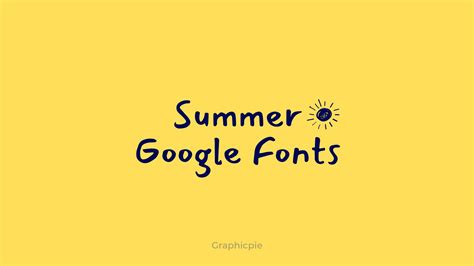
Last summer, I spent hours designing a beach party flyer in Google Docs, only to realize my typography looked exactly like a standard middle school book report. Default fonts like Arial and Roboto are functional, but they completely lack the breezy, energetic vibe seasonal projects demand. After digging through the native font directory, I compiled a massive list of 42+ Free Google Docs Summer Fonts Docx to save you the hassle. Here's the thing: Google Docs might not be Photoshop, but its typography library is surprisingly deep if you know where to look.
Curating My 42+ Free Google Docs Summer Fonts Docx List
When I tested this collection for various projects, I broke them down by mood. Summer aesthetics generally fall into three categories: breezy scripts, bold serifs for travel posters, and quirky sans-serifs for casual BBQ invites. You don't need external plugins to access these. You just need to expand your default font menu.
| Font Name | Style | Best Use Case |
|---|---|---|
| Pacifico | Script | Beach party headers |
| Shrikhand | Display | Retro road trip posters |
| Cherry Cream Soda | Display | Ice cream social invites |
| Josefin Sans | Sans-Serif | Clean summer newsletters |
How to Apply the 42+ Free Google Docs Summer Fonts Docx
Once I added them, I created a blank document to test kerning and readability. That said, some script typefaces look great as headers but fail completely in paragraph text. Always test your chosen typography at 12pt and 24pt before committing.
Organizing Your 42+ Free Google Docs Summer Fonts Docx
This is where it gets interesting. Google Docs doesn't let you create custom font folders. You just get one long alphabetical list. To manage this, I keep a master template document. Whenever I find a typeface I like, I type a sample sentence in that document, label the style next to it, and save the file. When I start a new seasonal project, I duplicate this master template. It saves me from scrolling through hundreds of unused typefaces every time I open a new file.
Designing seasonal documents is about capturing a feeling. The right typography does most of the heavy lifting for your layout. Play around with contrasting weights, keep your body text readable, and let your headers do the heavy thematic lifting.